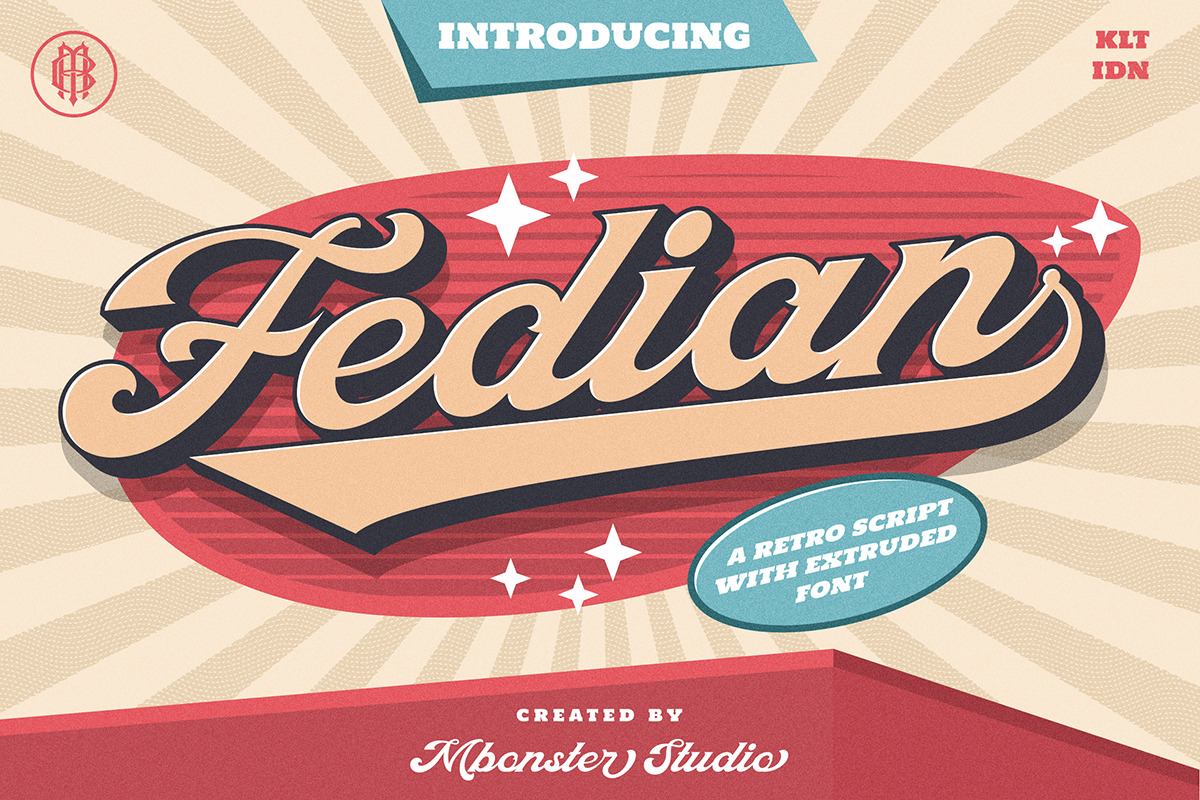
Fedian Script - Retro Font Free Download
You must purchase this font for commercial use. However, you can download Fedian Script - Retro Font Free Download for testing purposes. Fedian Script is a stylish, retro-inspired font that brings a vintage charm with modern flair. Its bold curves and dynamic letterforms make it perfect for logos, posters, branding, packaging, and any project that needs a fun, nostalgic touch.
The unique, flowing design of Fedian Script captures the essence of retro typography while maintaining an easy-to-read, contemporary appeal. Whether you're working on a retro-themed brand, a creative marketing campaign, or a vintage-inspired event poster, this font adds personality and warmth to your designs.